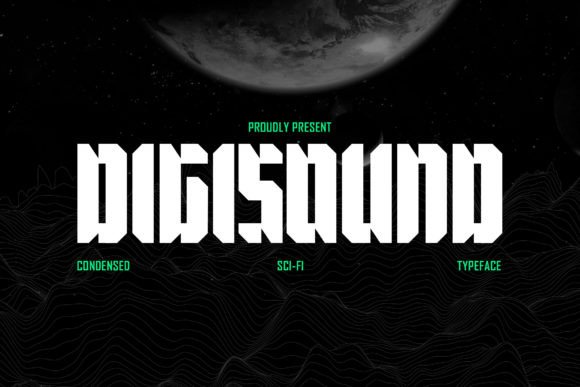
Introducing Digisound Font: The Ultimate Sci-Fi Futuristic Typeface
In the realm of digital design, typography plays a crucial role in conveying the tone and aesthetic of a project. For those seeking a font that embodies the essence of the digital age, look no further than Digisound. This modern bold condensed Sci-Fi futuristic font is specifically designed to bring a cutting-edge vibe to your designs, making it perfect for a wide range of applications, from tech branding and sci-fi themed projects to futuristic posters and digital interfaces.
The Design of Digisound Font
Digisound’s design is characterized by its sharp lines, condensed structure, and bold appearance. These features combine to create a futuristic aesthetic that is both sleek and attention-grabbing. The font’s condensed structure allows for efficient use of space, making it ideal for titles, headings, and other design elements where impact is key. The sharp lines and bold appearance give Digisound a high-tech feel, evoking the cutting-edge technology and innovation of the digital age.
Key Features of Digisound Font
- Modern and Bold Design: Digisound’s contemporary design ensures that your projects stand out with a fresh and modern look.
- Condensed Structure: The font’s condensed structure makes it perfect for titles and headings where space is limited but impact is crucial.
- Sci-Fi Aesthetic: With its sharp lines and futuristic appearance, Digisound is ideal for sci-fi themed projects, tech branding, and futuristic designs.
- High-Tech Vibe: The font’s design elements work together to create a high-tech aesthetic that is perfect for projects requiring a cutting-edge look.
- Versatile Usage: Digisound can be used in a variety of design projects, including branding, posters, video game titles, movie posters, logo design, and digital interfaces.
Use Cases for Digisound Font
Digisound’s versatility makes it suitable for a wide range of design projects. Here are some of the key areas where Digisound can make a significant impact:
1. Tech Branding
In the tech industry, branding is crucial for standing out in a crowded market. Digisound’s modern and bold design makes it an excellent choice for tech companies looking to create a strong and memorable brand identity. Whether it’s for a startup or an established tech giant, Digisound can help convey a sense of innovation and forward-thinking.
2. Sci-Fi Themed Projects
Sci-fi projects require a font that can convey a sense of futurism and otherworldliness. Digisound’s sharp lines and condensed structure make it perfect for sci-fi themed posters, movie titles, and video game designs. The font’s futuristic aesthetic can help transport your audience to another world, enhancing the overall impact of your project.
3. Futuristic Posters
Posters are a great way to grab attention and communicate a message quickly. With Digisound, you can create futuristic posters that stand out and leave a lasting impression. The font’s bold appearance ensures that your message is clear and impactful, making it perfect for advertising, event promotion, or informational posters.
4. Video Game Titles
The title of a video game is often the first thing players see, and it sets the tone for the gaming experience. Digisound’s sci-fi aesthetic and bold design make it an excellent choice for video game titles. The font can help convey the game’s theme and attract the right audience.
5. Movie Posters
Movie posters are essential for promoting films and capturing the essence of the story. Digisound can be used to create eye-catching movie posters that convey a sense of drama, adventure, or futurism, depending on the film’s genre. The font’s versatility allows it to be tailored to fit the movie’s tone and style.
6. Logo Design
A logo is a critical element of a brand’s identity, and the right font can make all the difference. Digisound’s modern and bold design makes it suitable for logo design, especially for tech companies, startups, and sci-fi related brands. The font’s unique aesthetic can help create a memorable and impactful logo.
7. Digital Interfaces
In the digital age, user interface (UI) design is crucial for creating engaging and user-friendly digital products. Digisound can be used in digital interfaces to create a modern and tech-forward look. The font’s readability and bold appearance make it suitable for headings, buttons, and other UI elements.
Why Choose Digisound Font?
With so many fonts available, why choose Digisound? Here are a few reasons why Digisound stands out:
- Unique Aesthetic: Digisound offers a unique blend of modernity and futurism, making it stand out from more traditional fonts.
- Versatility: The font’s versatility means it can be used across a wide range of projects, from tech branding to sci-fi themed designs.
- Impactful Design: Digisound’s bold and condensed design ensures that your projects make a strong impact and grab attention.
By incorporating Digisound into your design workflow, you can create visually stunning and impactful projects that stand out in a crowded digital landscape. So why wait? Explore the possibilities of Digisound and take your designs to the next level.